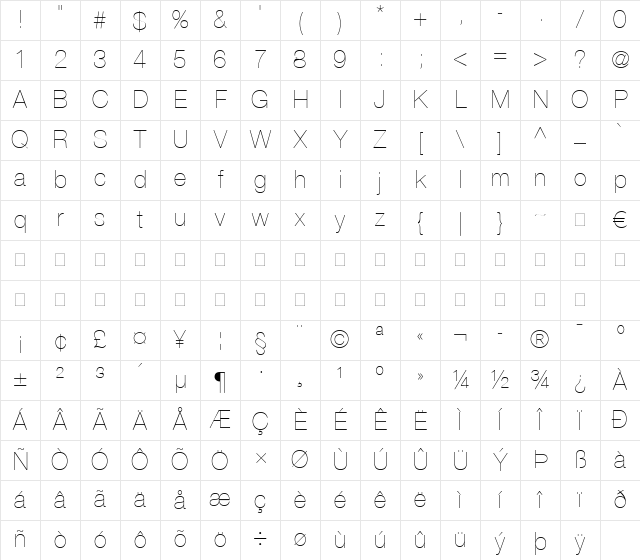
Helvetica 25 UltraLight Regular
Helvetica 25 UltraLight Family
Design Context for Helvetica 25 UltraLight
Helvetica 25 UltraLight is a composed and adaptable typeface that performs quietly and consistently across a wide range of design contexts. Its slender proportions lend an understated elegance to any composition.